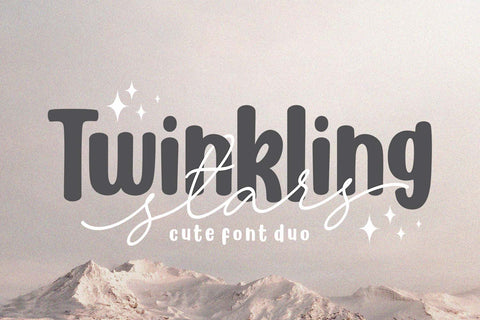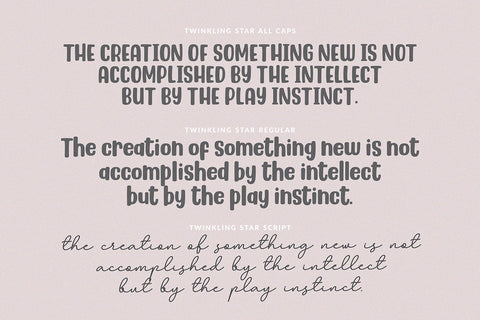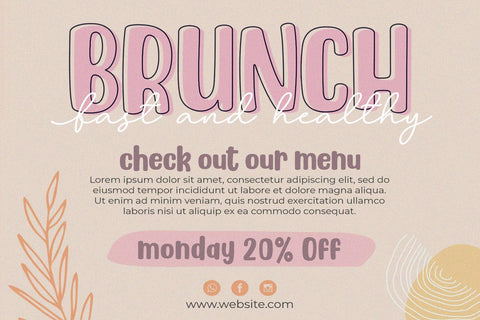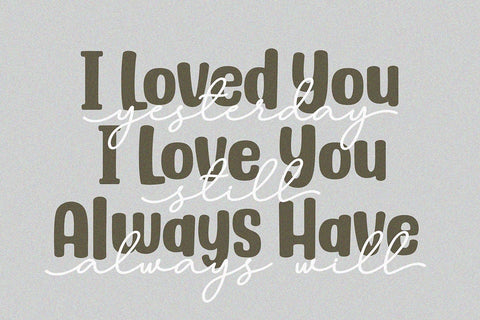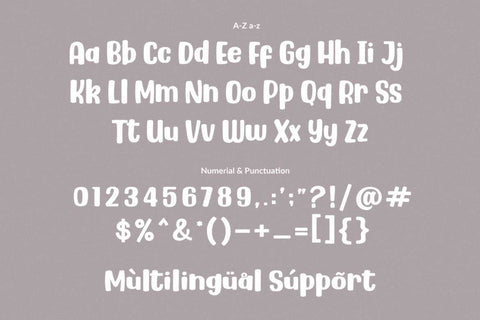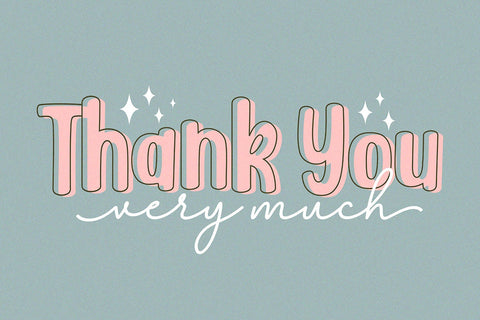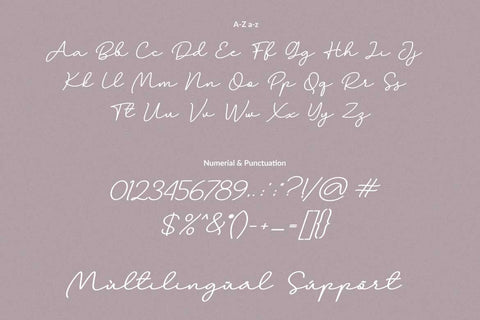
Twinkling Stars - Cute font duo
Twinkling Stars is a duo-styled Display font and monoline script font, that feels equally charming and delicate.
- Alternate Letter for script